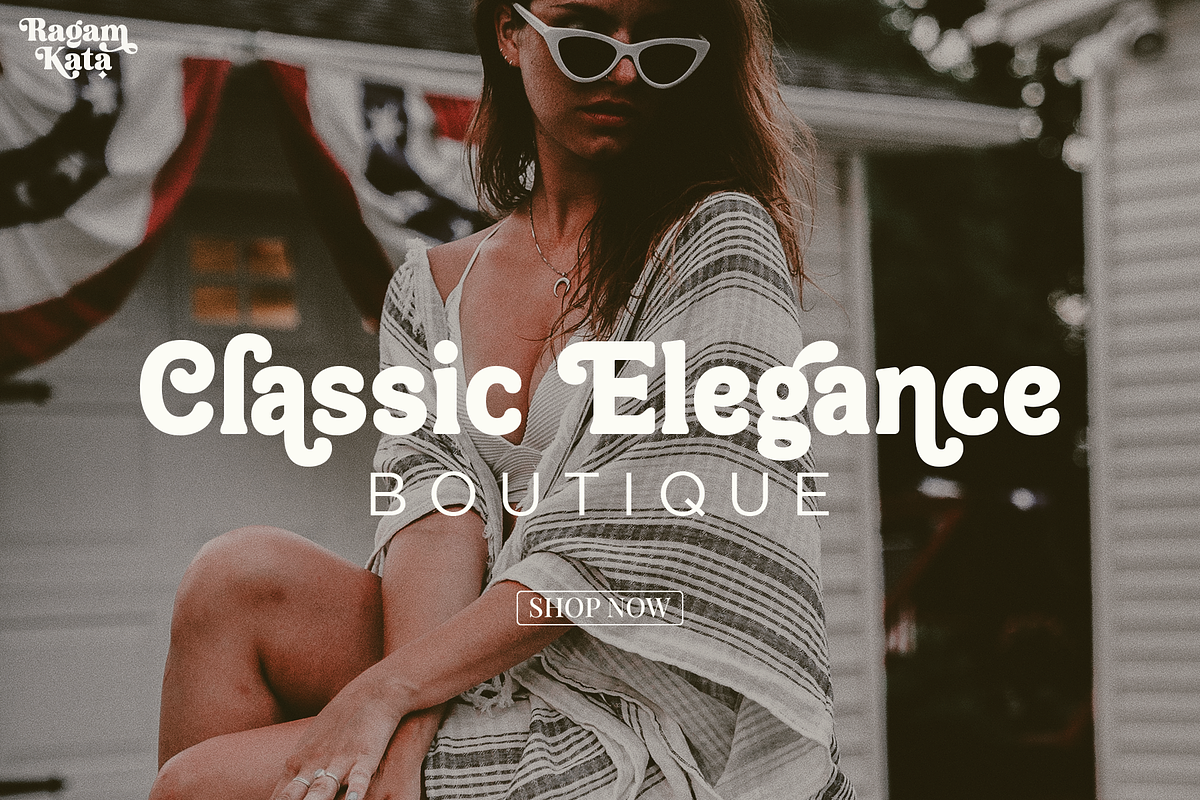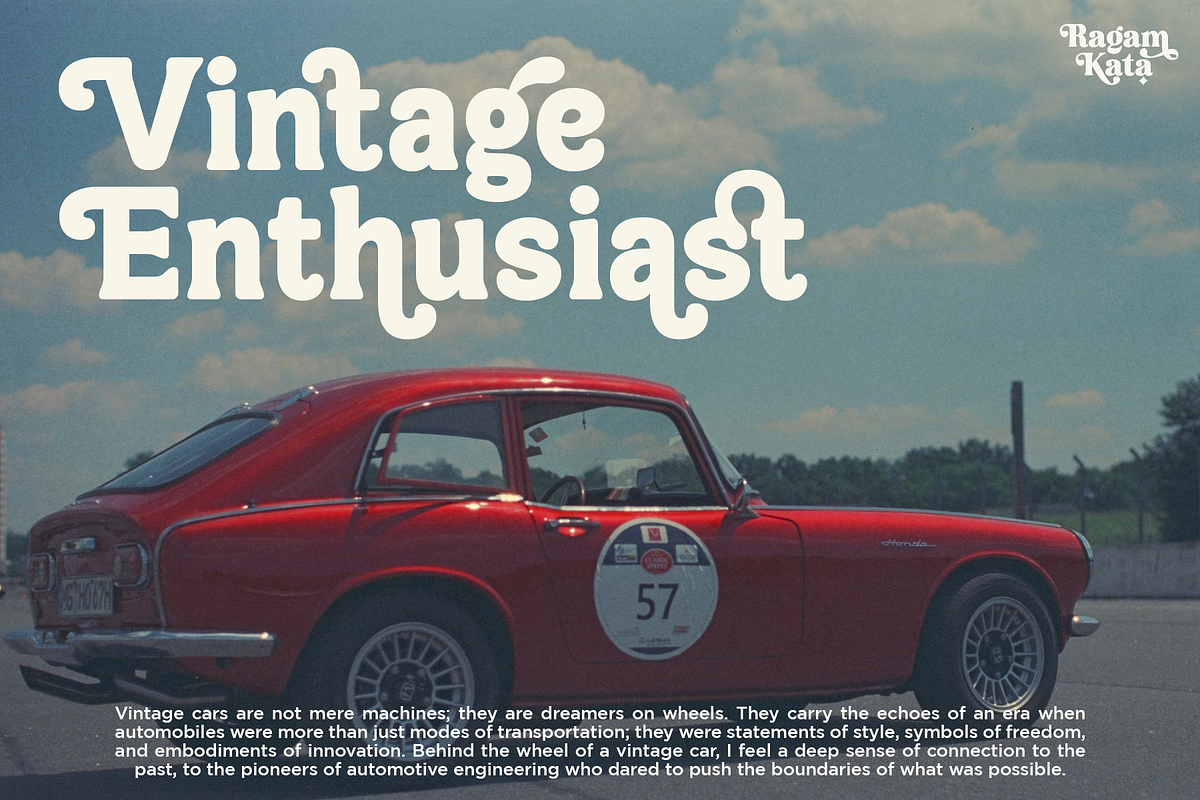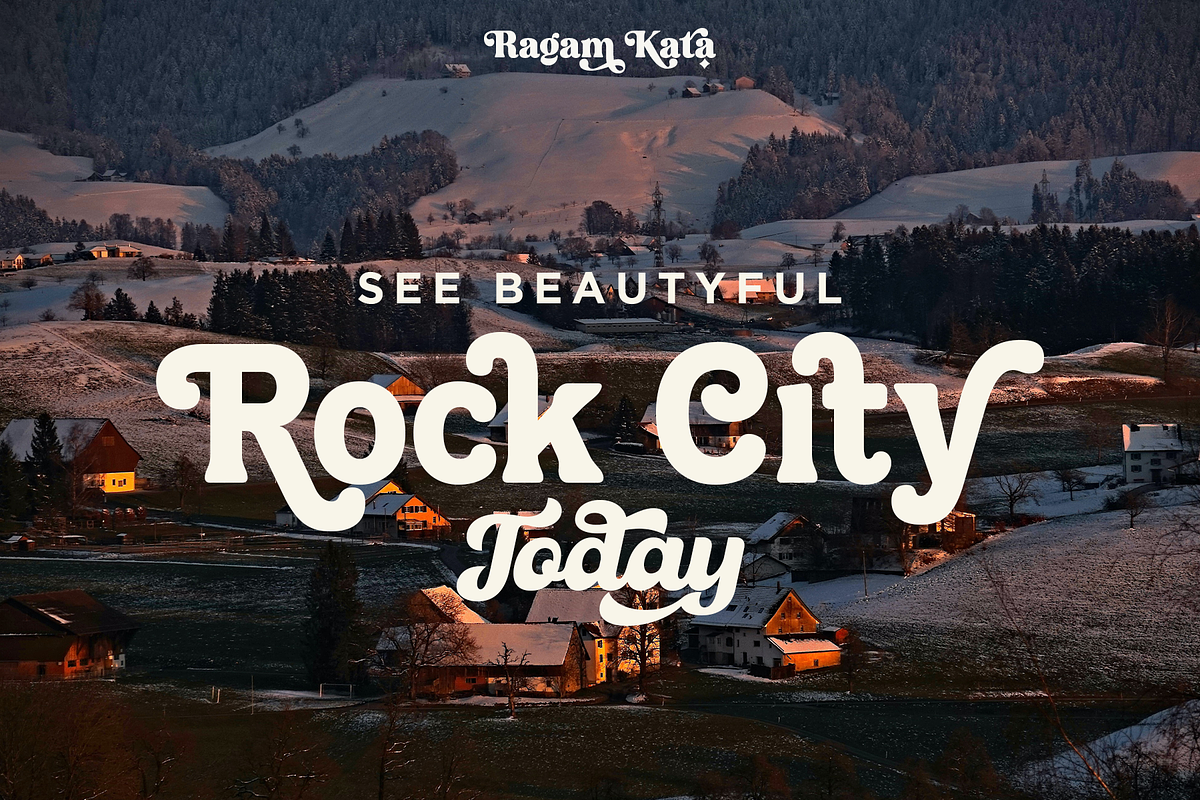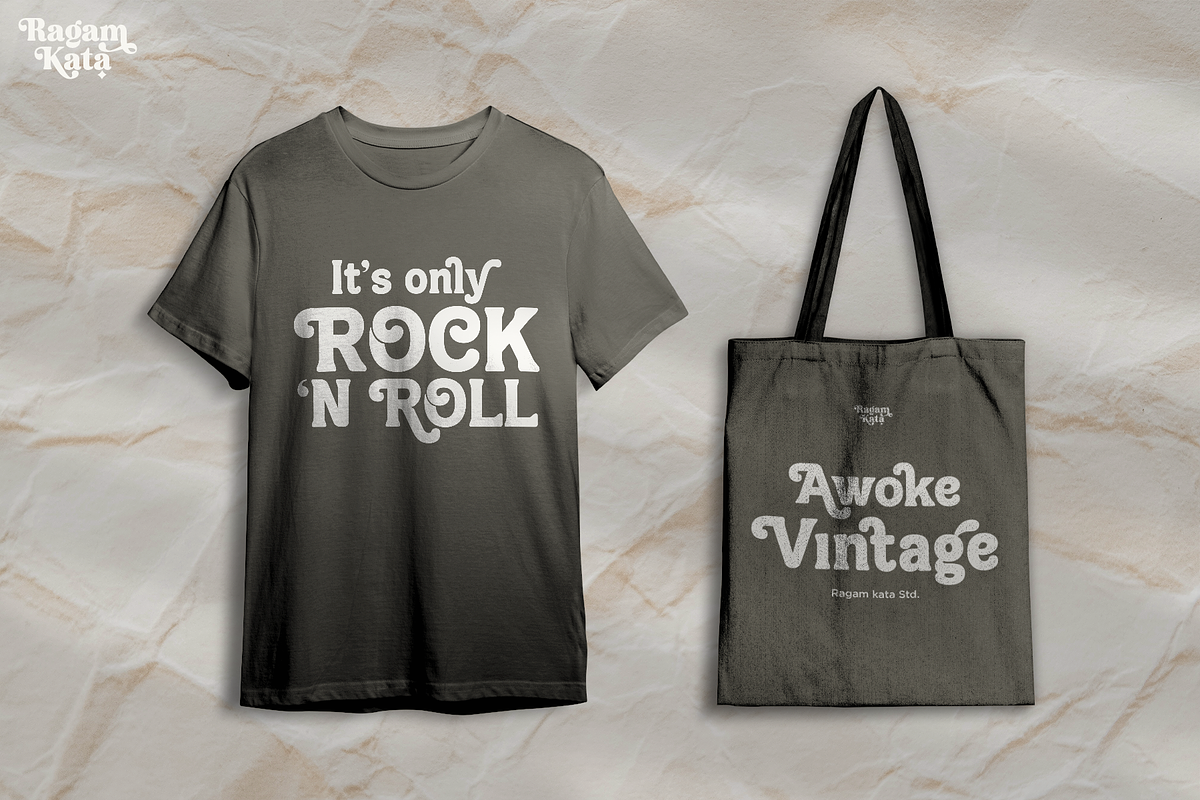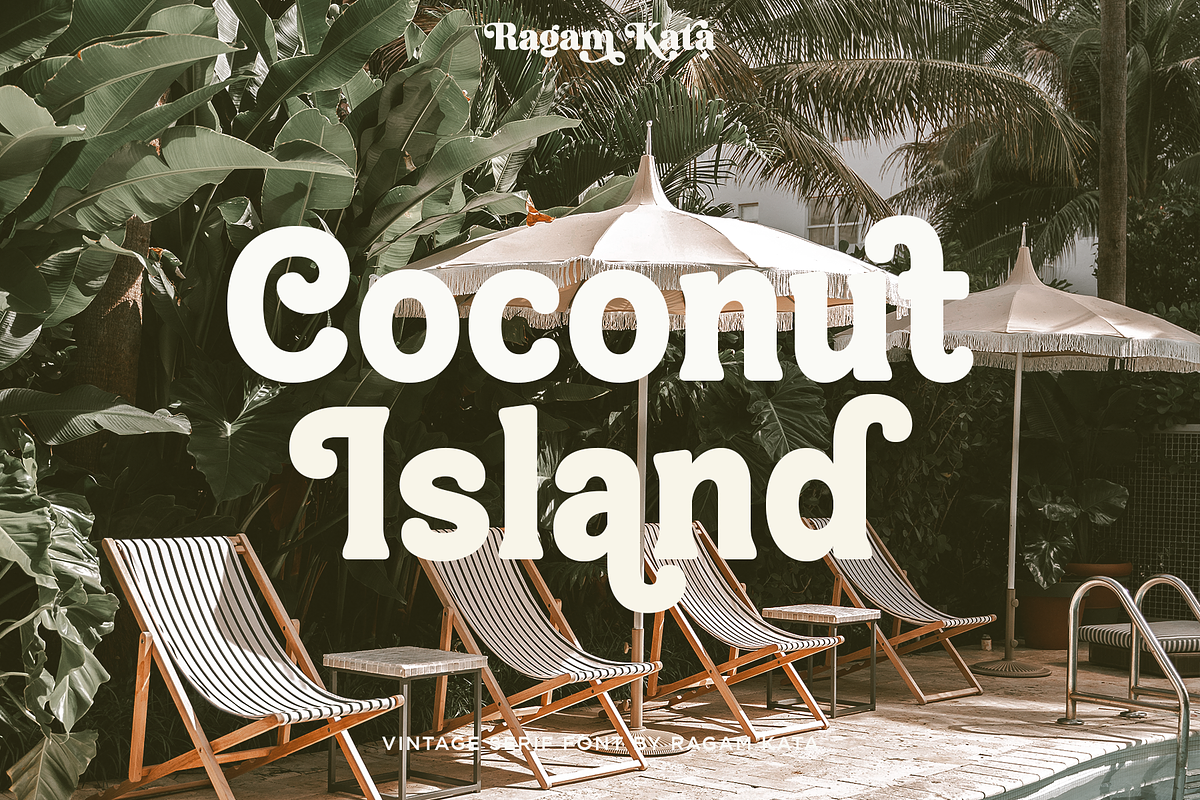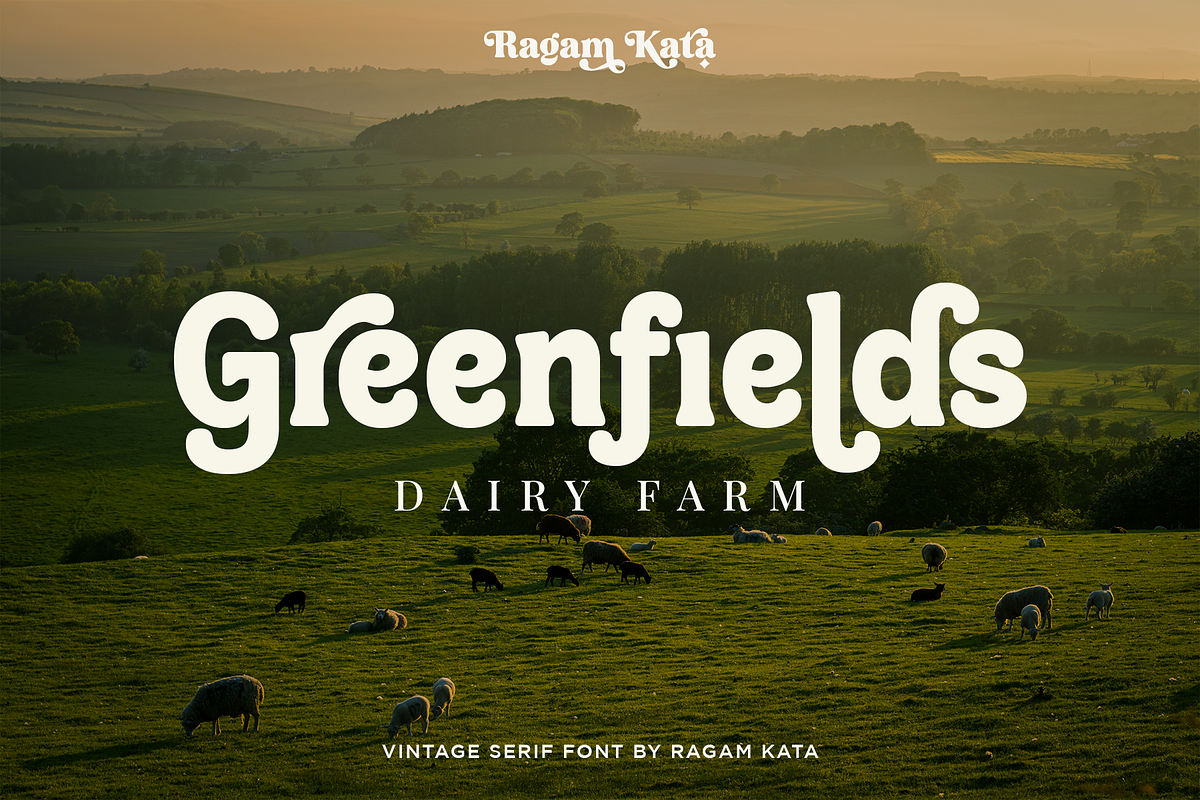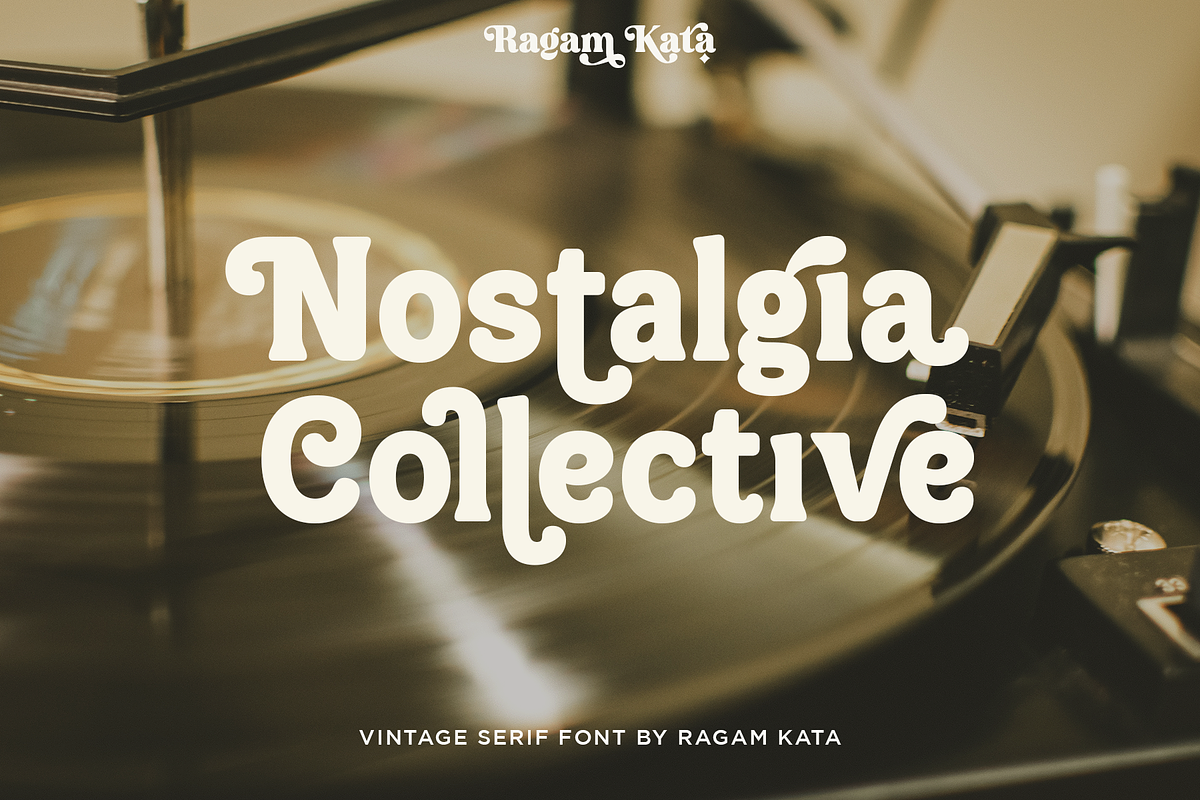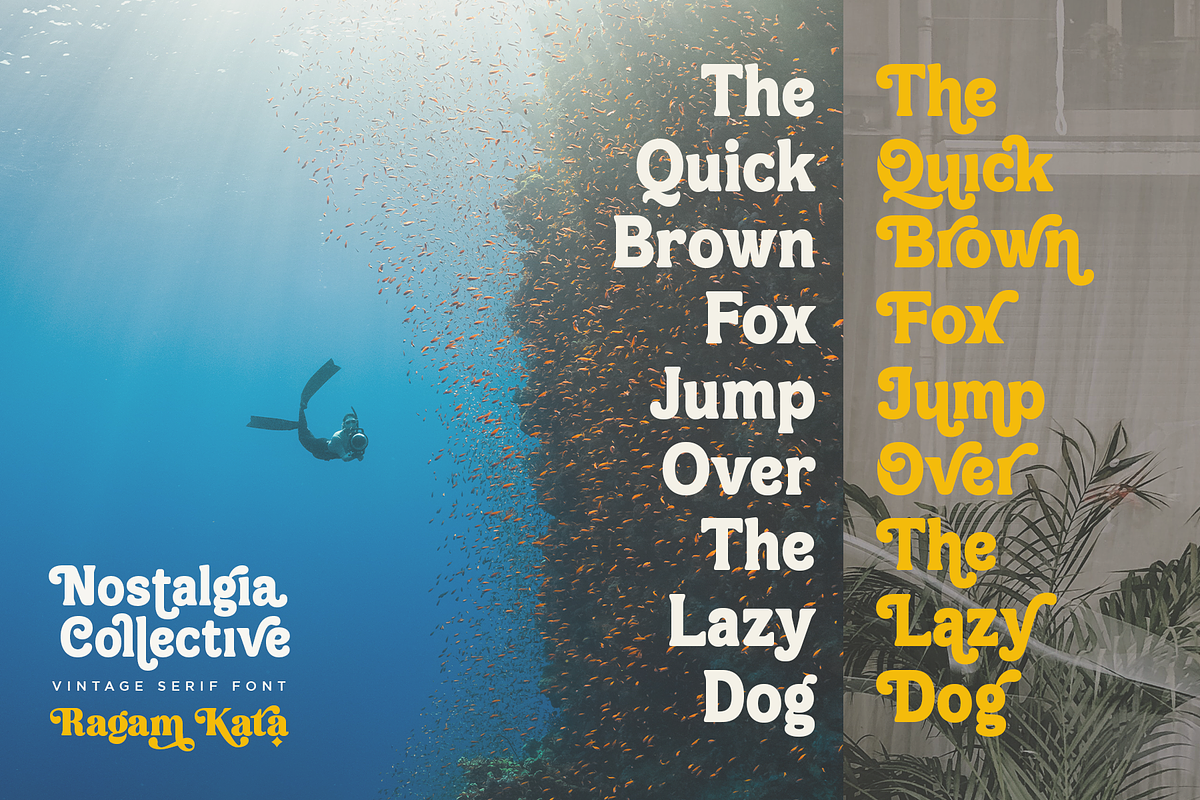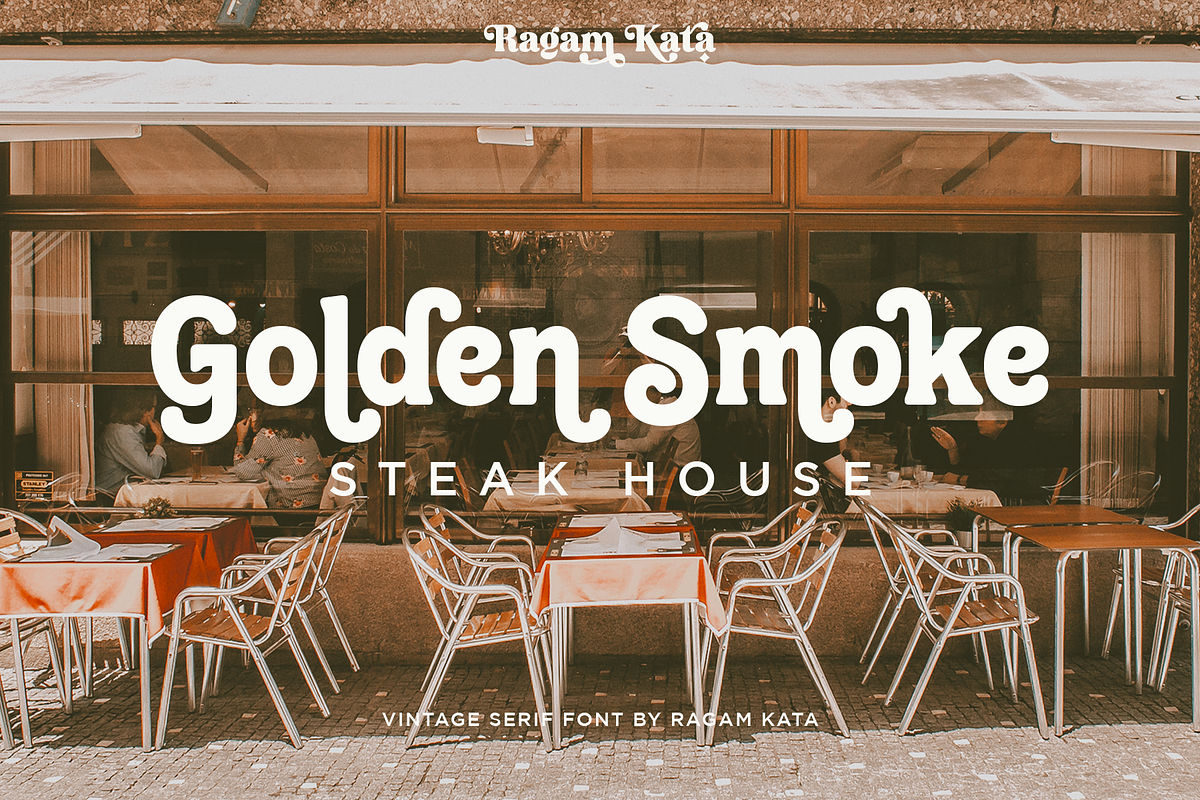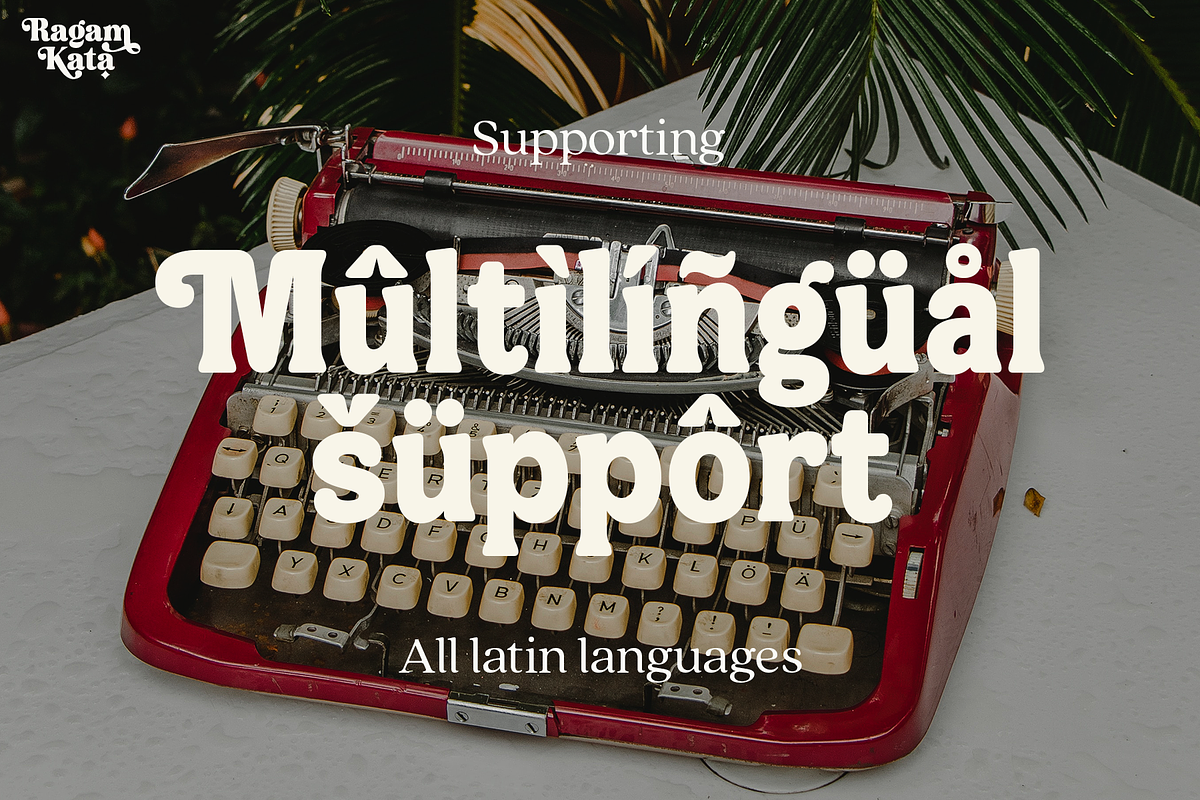
Nostalgia Collective - Vintage Serif
Nostalgia Collective is a vintage serif font.
With many alternate features for each letter, Nostalgia Collective provides flexibility and variety in the appearance of the text. Each letter has a unique alternative, adding a creative and eye-catching touch to your designs. From curvy shapes to artistic details, each character in this font displays a different kind of beauty and authenticity.
Nostalgia Collective is very suitable for design projects that want to present a vintage aura, such as branding, poster design, packaging, and merchandise design.
With Nostalgia Collective, you can express your creativity in creating a unique look that invites nostalgia. This font will add unforgettable vintage charm and characteristics to any design project you work on.